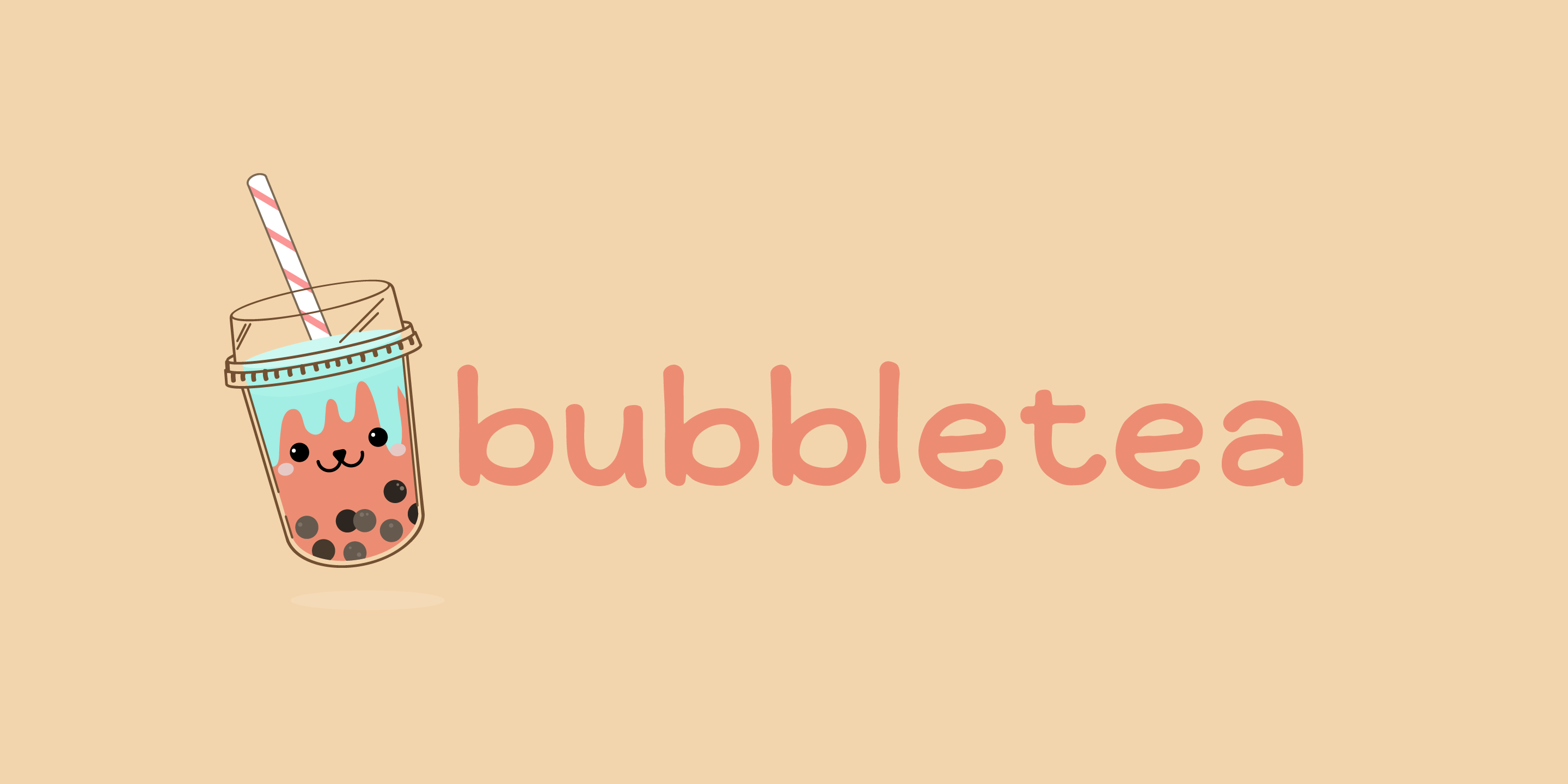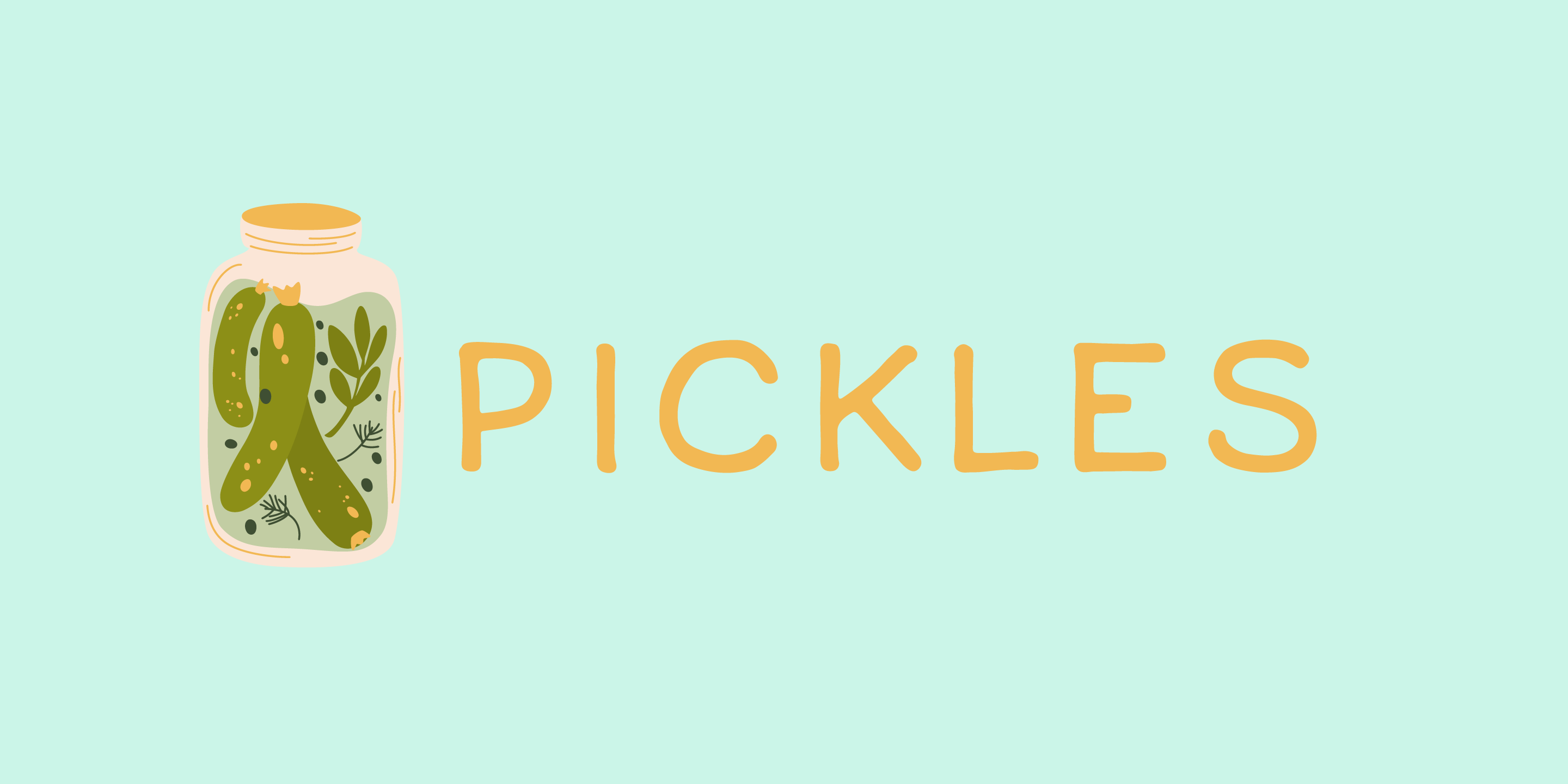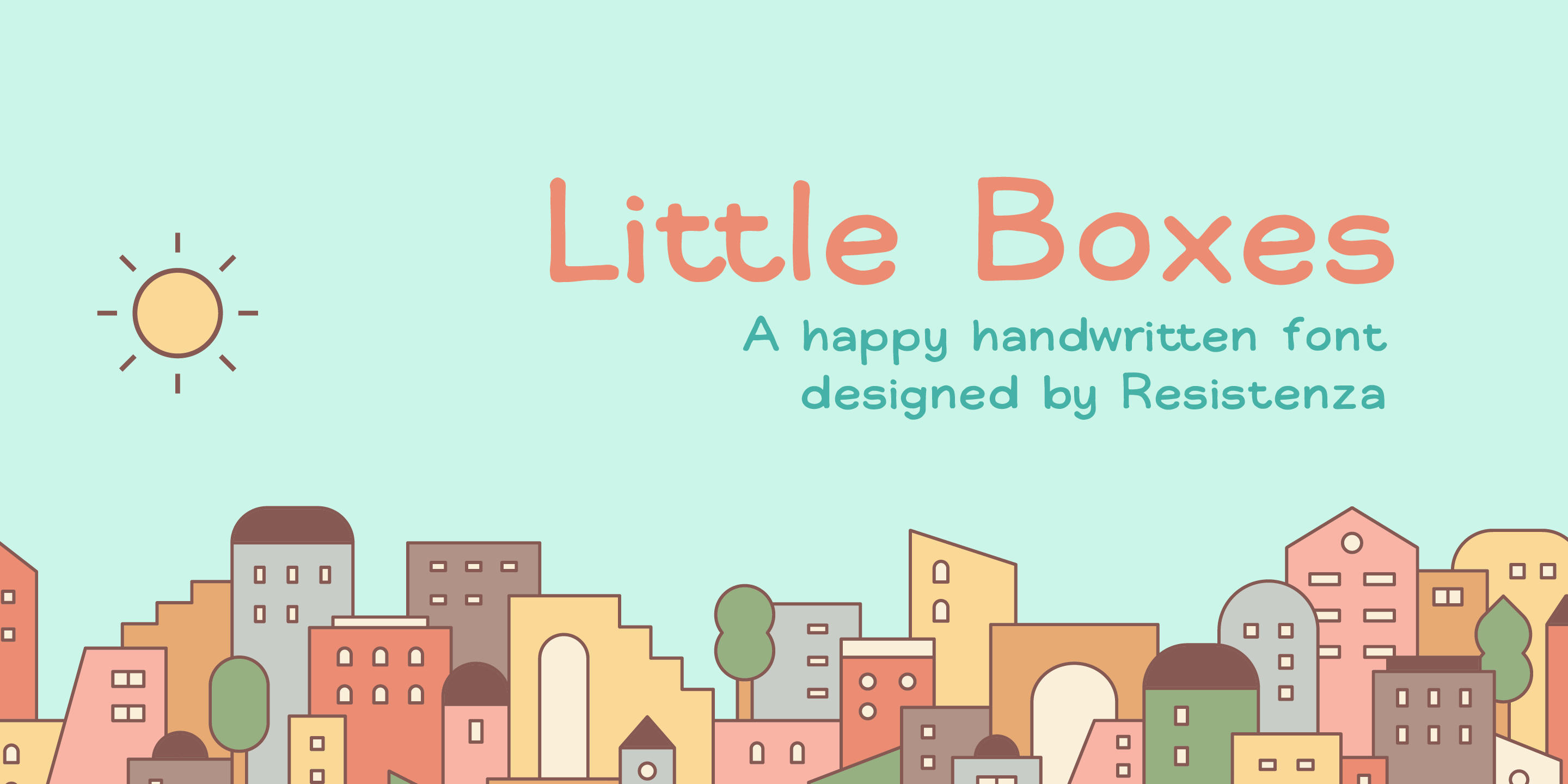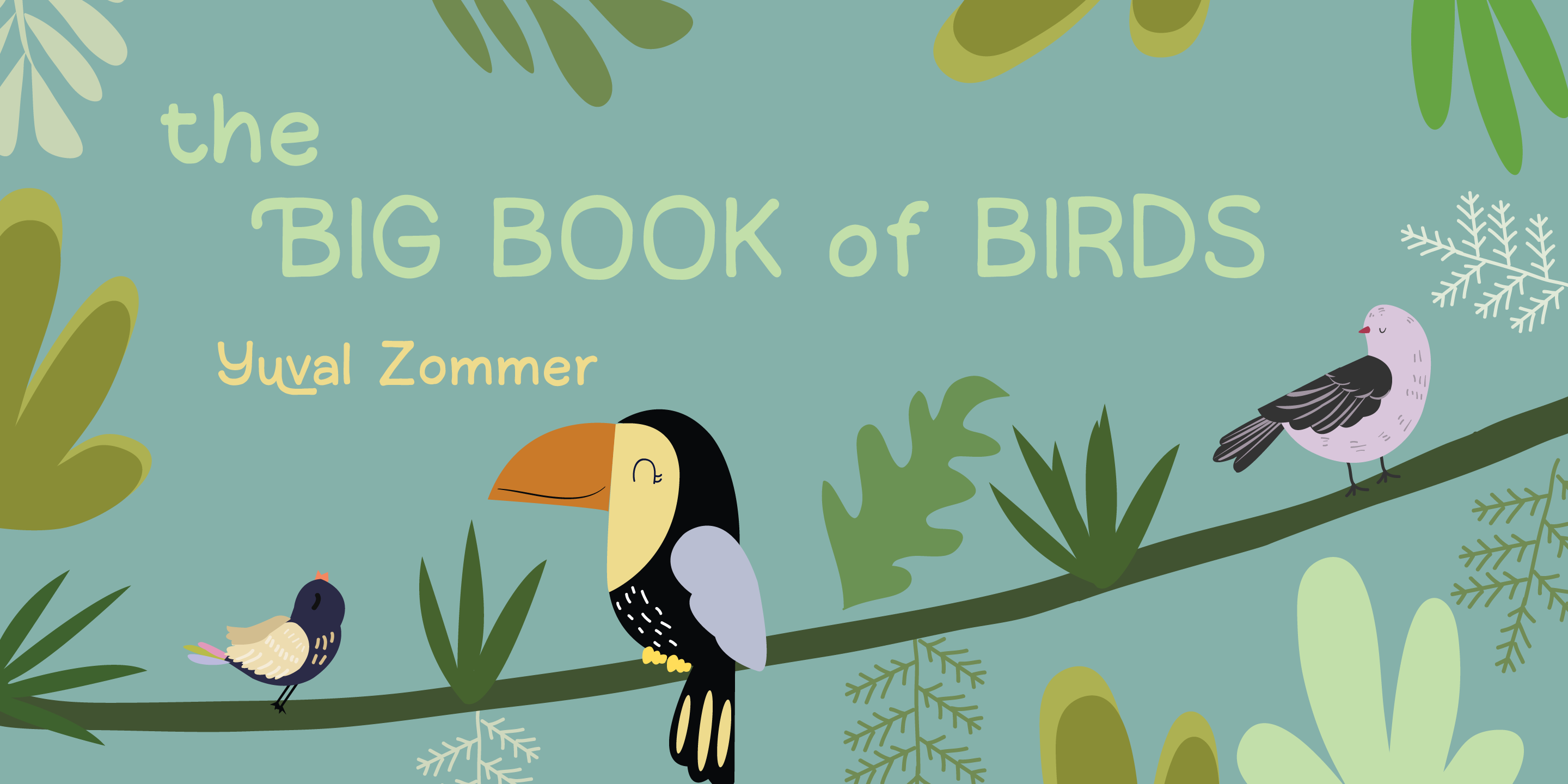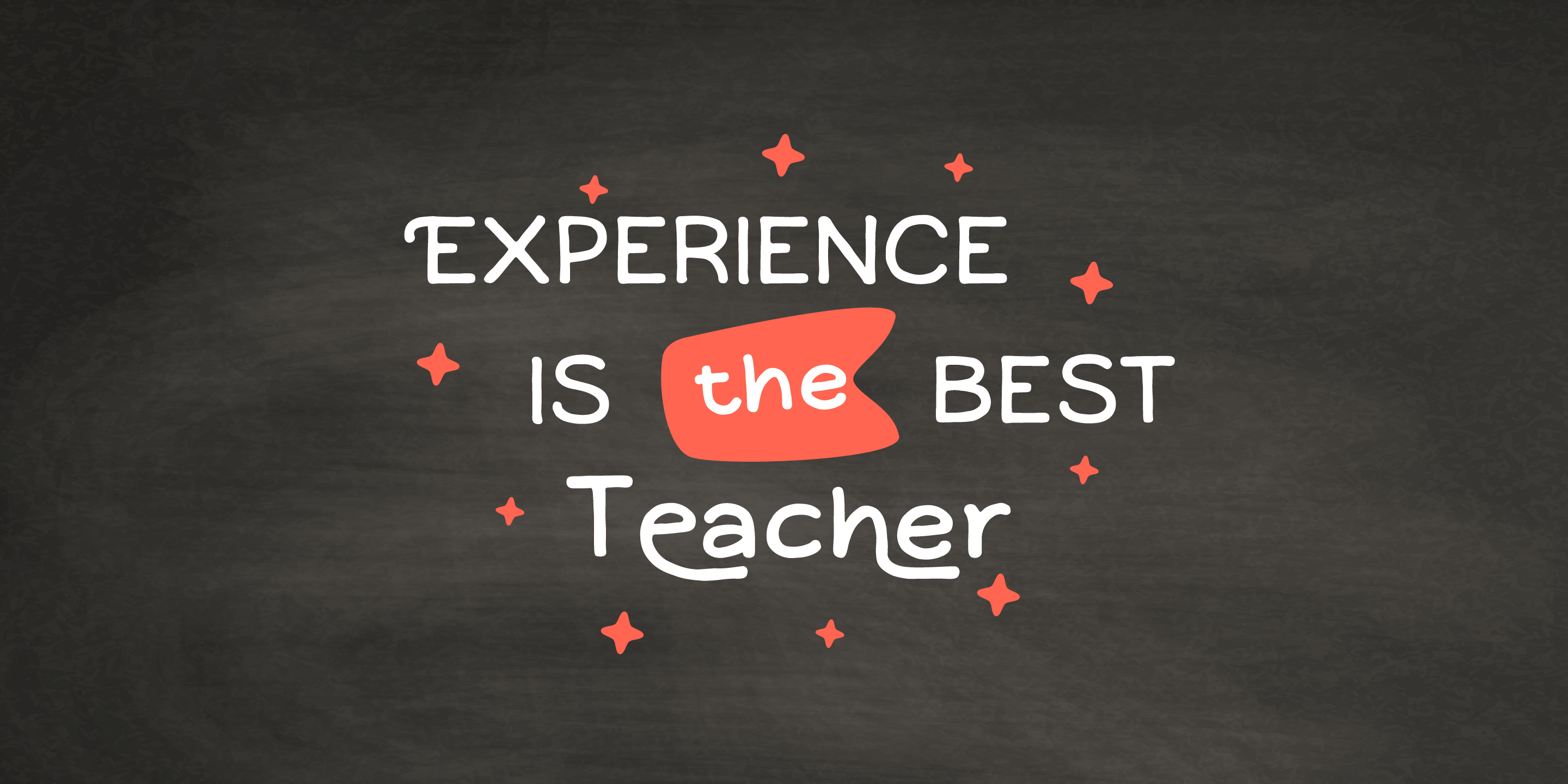
Little Boxes
Handwritten font
Little Boxes
Designed by Resistenza Type FoundryA new happy handwritten sans serif font has arrived!
Little Boxes has been designed with felt pen on smooth paper to create the illusion of human craft and then digitalized. Three different fonts Regular, slanted and dance.
Optimized shapes to obtain the best readability without loosing the analogical feeling of the original designing tool, makes this font perfect both for printing and digital environments and it allows the use of the font on any project with different media supports.
This fresh font family is ready for text, but check your opentype features window while using the font and discover a beautiful set of alternate letters. Create catchy words and add more fun to any layout, which makes it a perfect match for titles and display too.
A friendly typeface to give a whimsical touch to your projects. We highly recommend using Little Boxes for App, web, ePub, digital Ads, Video games, and a great fitting for printing; headlines, posters, DIY hand-lettered artwork, books, holiday cards, invitations, T-shirts, labels, packaging, artisanal goods, etc.